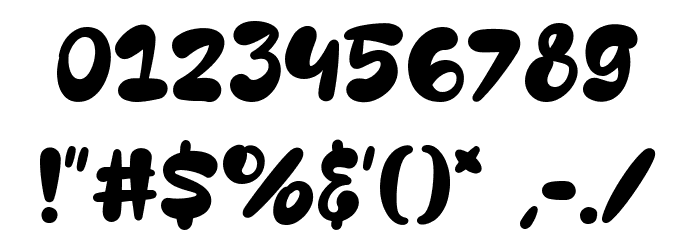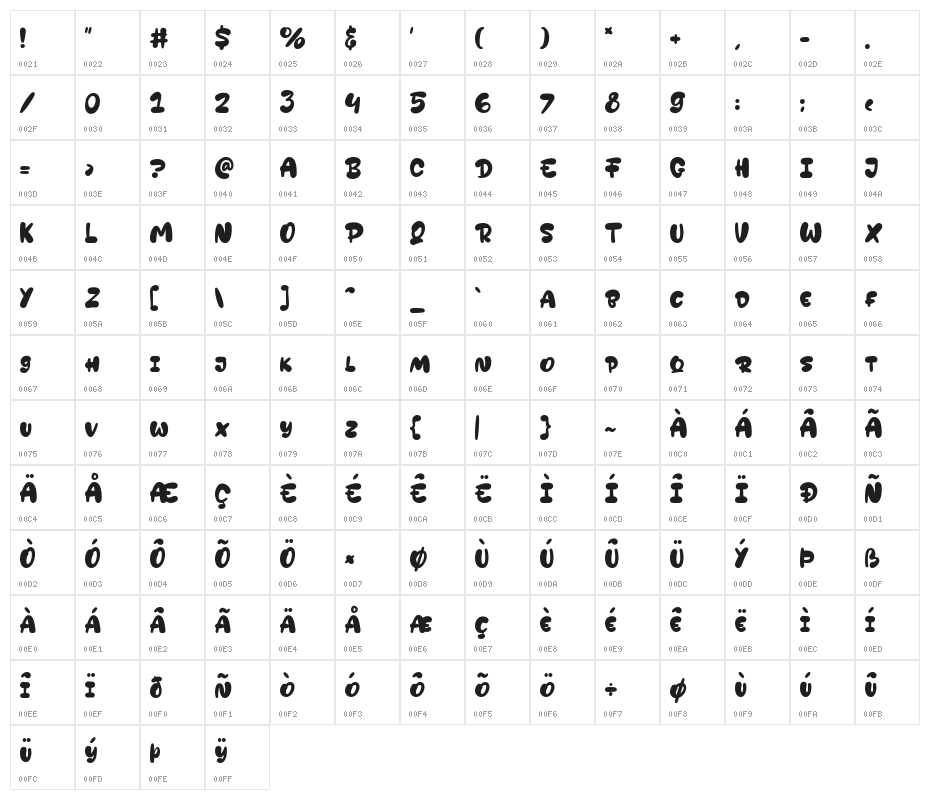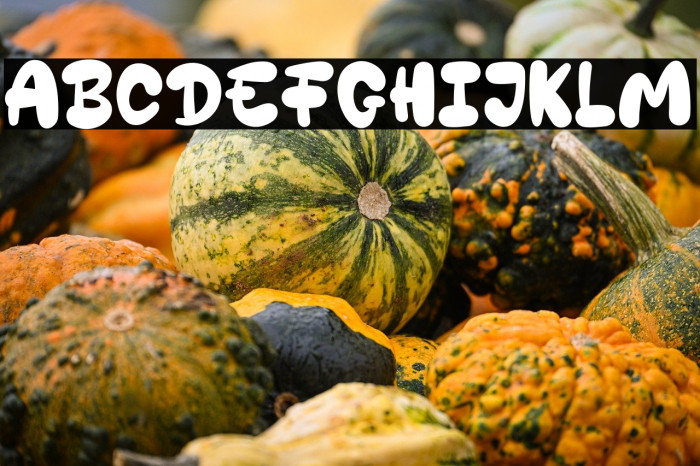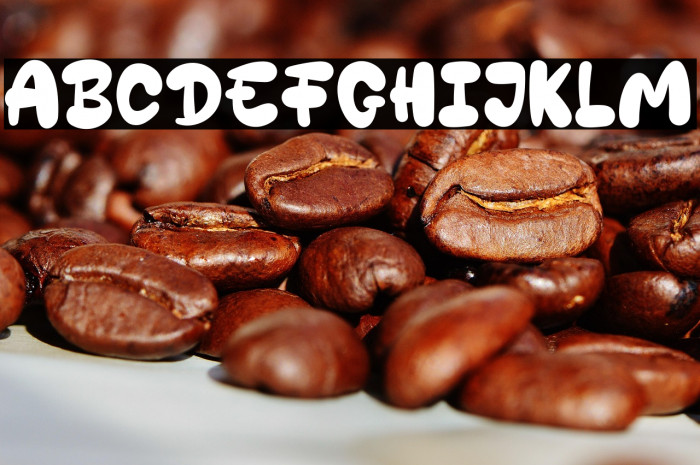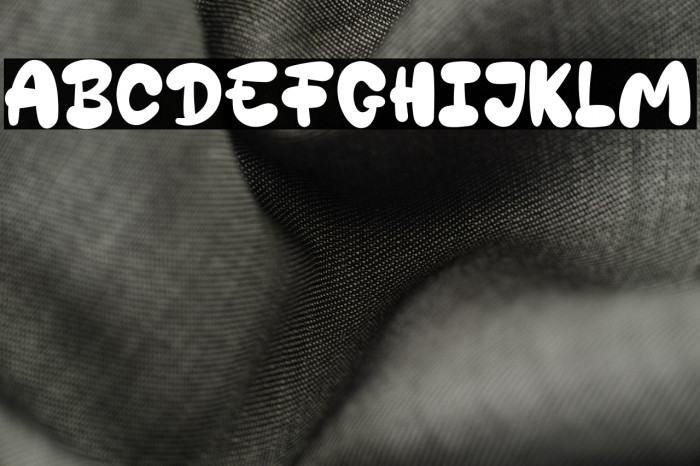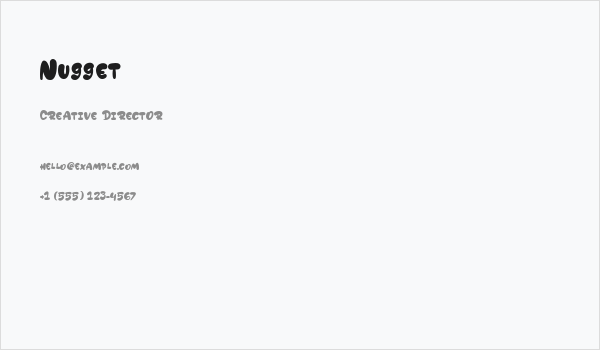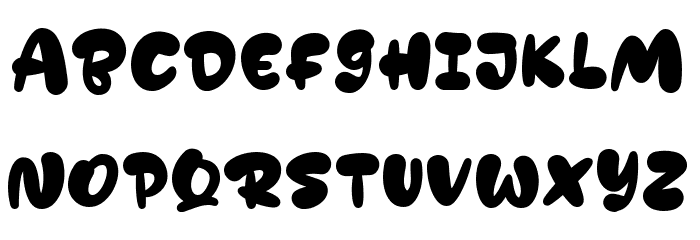
Nugget Font
Nugget Description
This playful and bold font features thick, rounded strokes that give it a friendly and approachable appearance. The characters are slightly irregular, adding a whimsical touch to the overall design. The uppercase and lowercase letters maintain a consistent style, with a strong emphasis on curves and rounded edges. The numbers and special characters follow the same design principles, ensuring a cohesive look across all elements. This font's unique style makes it stand out, making it suitable for creative and informal projects.
Overall StylePlayful
Proposed ProjectsIdeal for children's books, playful branding, posters, and social media graphics.